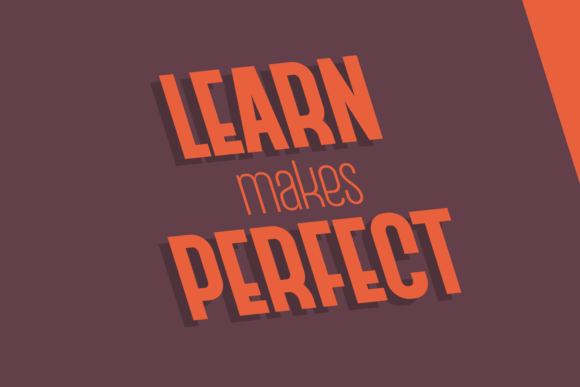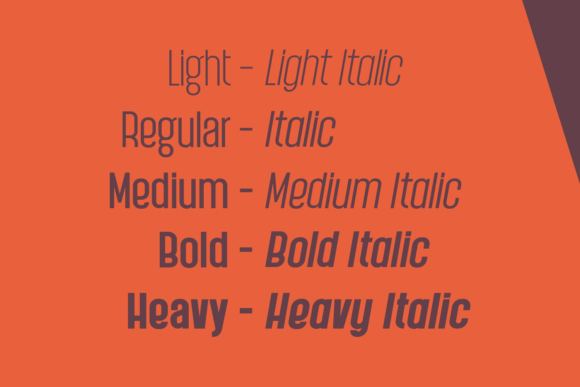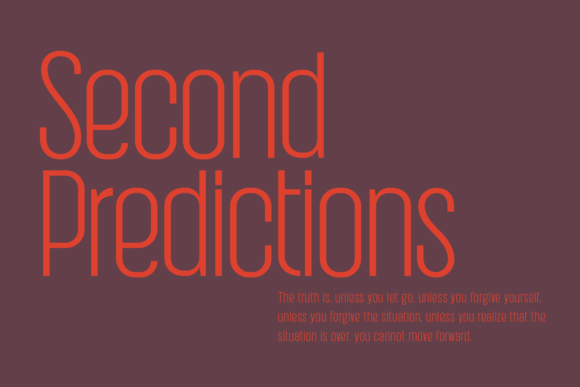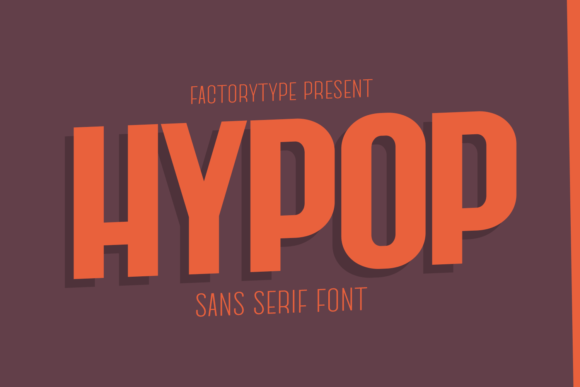
Introduction to Hypop Font
HYPOP is a bold and condensed sans serif font family with a nostalgic vibe.
Combining retro and minimalist elements resulted in an elegant design The different weights give you a lot of options when it comes to choosing the right typographic color for your project.
Hypop Font offers exceptional quality and versatility, making it a valuable addition to your design toolkit. Whether you’re creating for personal projects or commercial use, Hypop Font delivers professional results.